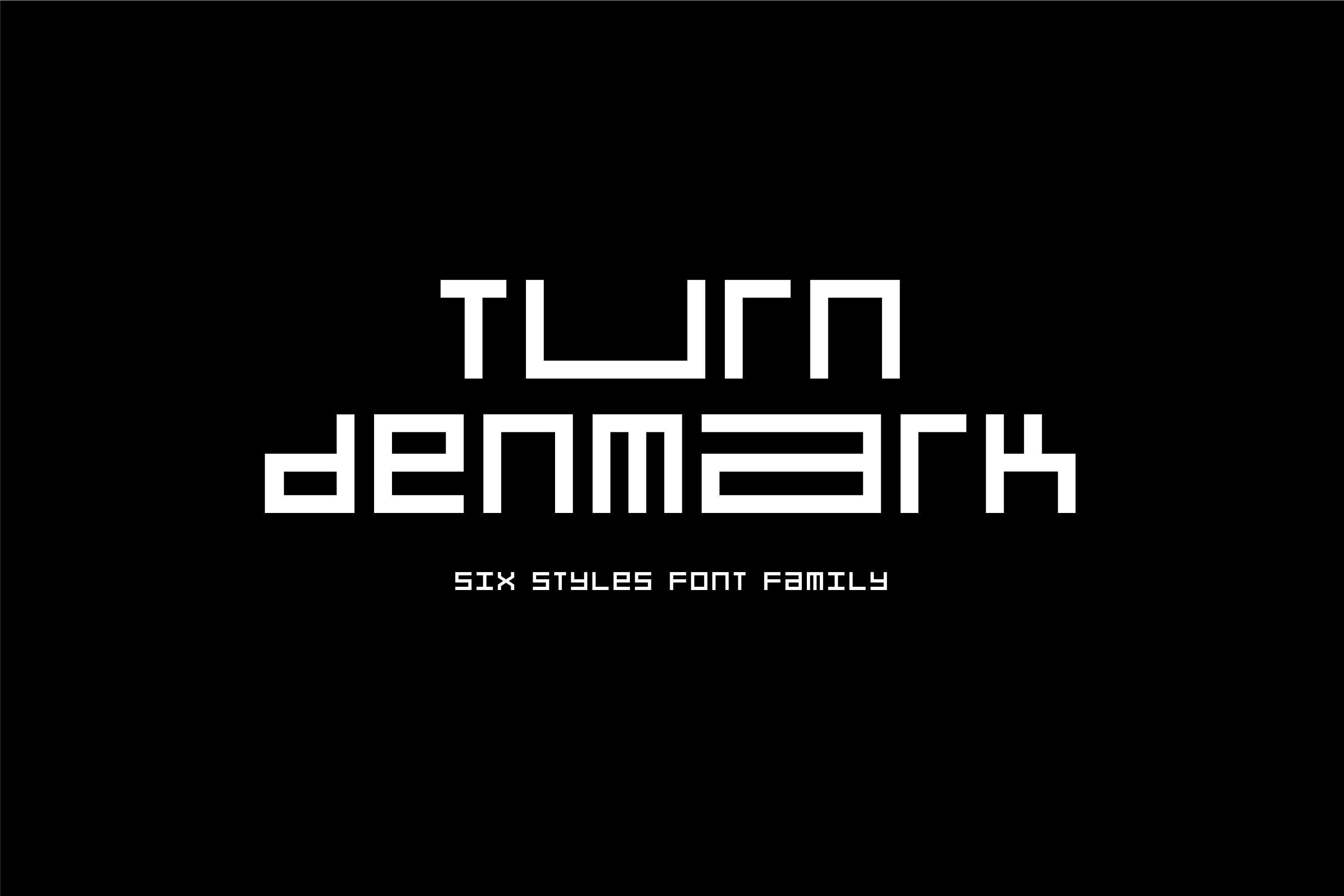
Turn Denmark
Turn Denmark is a display geometric typeface designed for a special place. It's inspired by the idea of wandering on the streets, turning left, right and around, exploring the area in search of new cosy corners and fancy places. Turn Denmark has six styles to make the font itself work as a very strong graphic element. It is great to use it both on screen and in print, combine it with photos or illustrations or explore font's possibilities using its styles in various combinations.
- 6 styles: Basic (all letters of the same width), Light, Regular, Semibold, Bold and Slashed (italic)